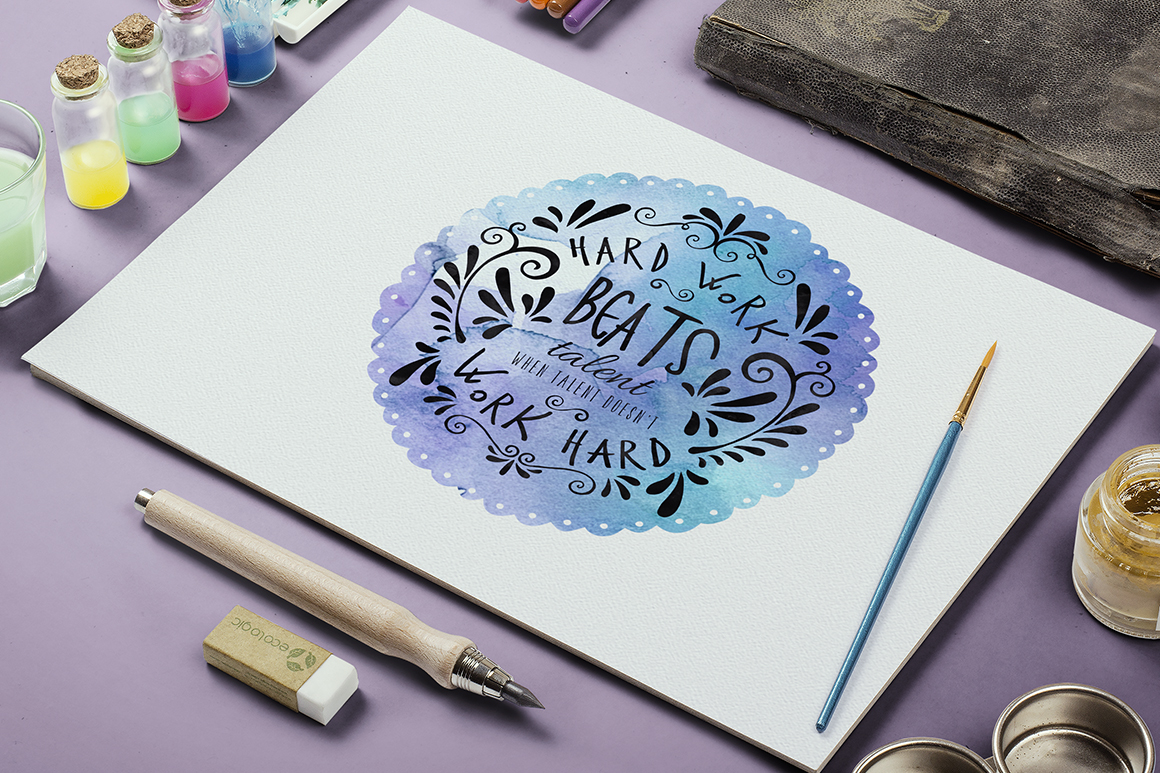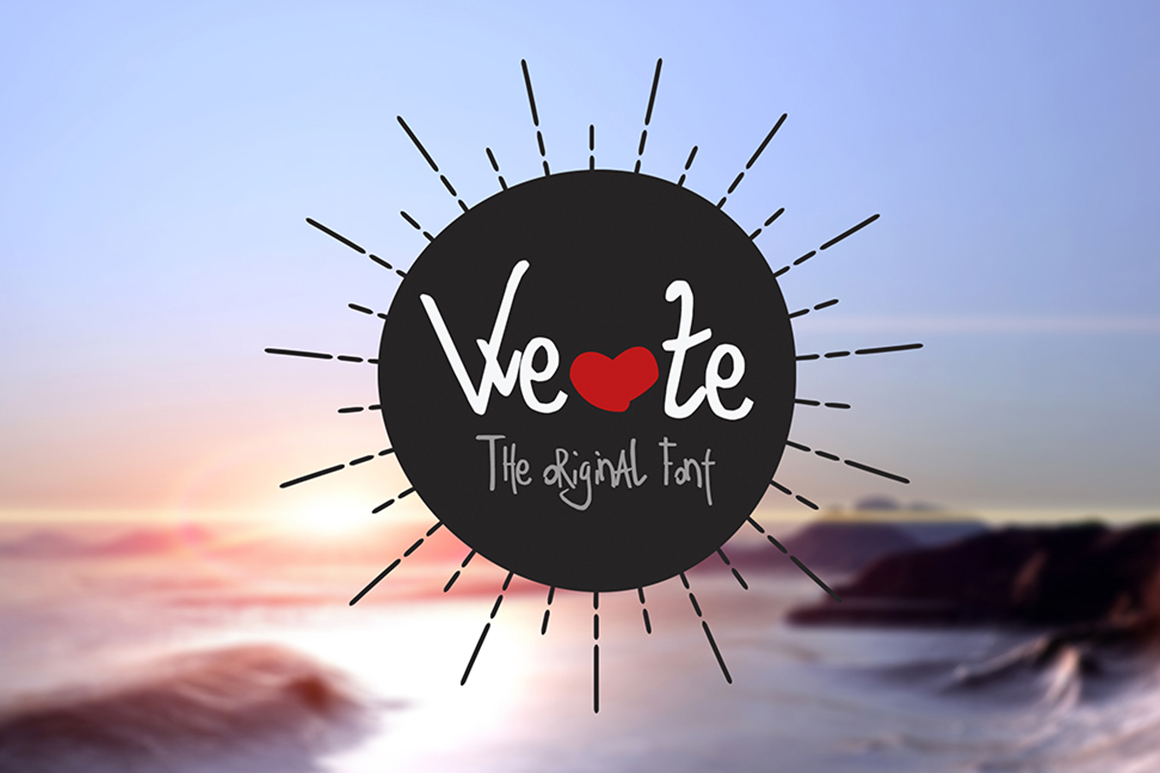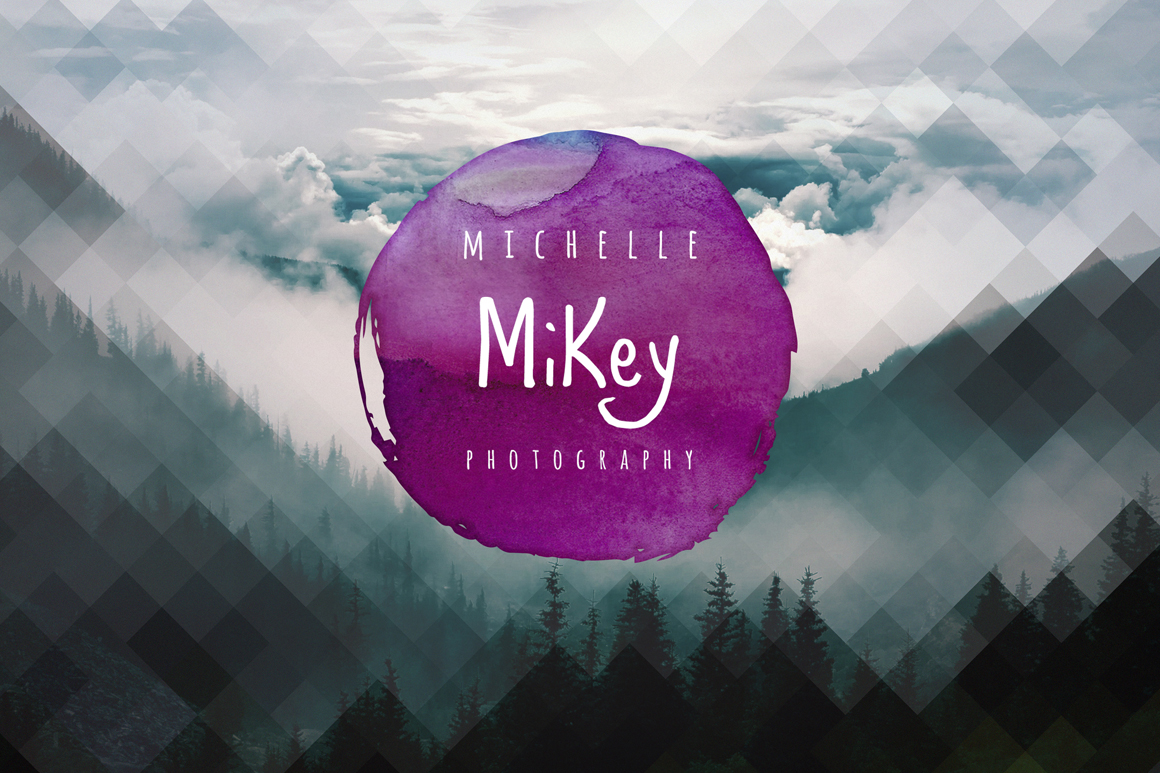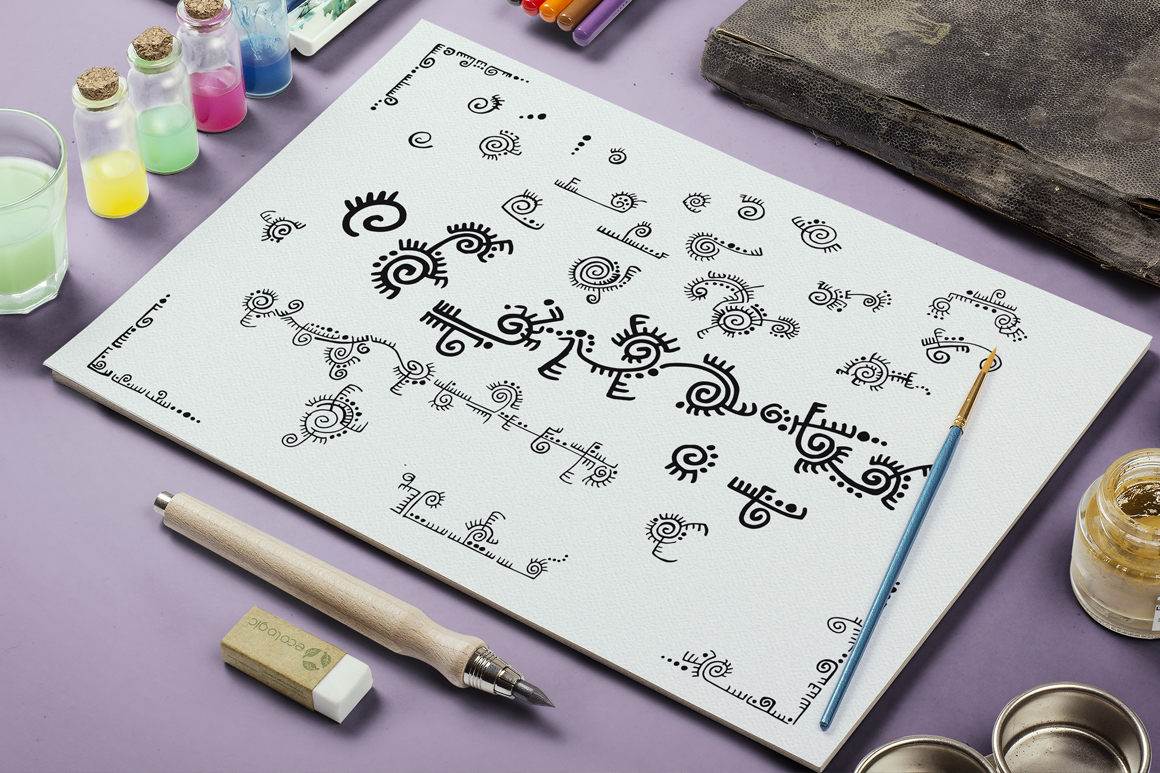
We Font
The We Font is a fine marker font with elegant playful letters.
This font is perfect when you want to give a personal touch to your designs.
The We Font comes in 4 matching variations:
Ze Font Regular
Ze Font Bold
Ze Font Cursive
Ze Font Bold Cursive